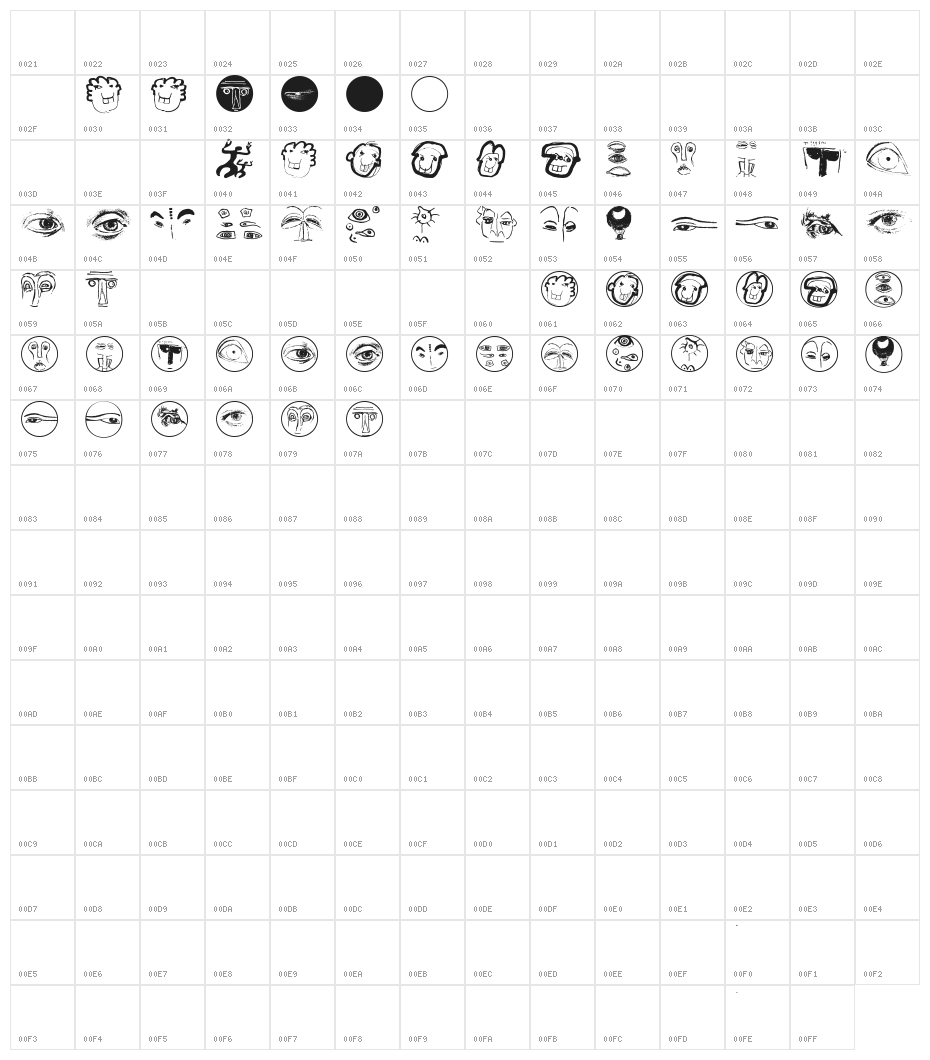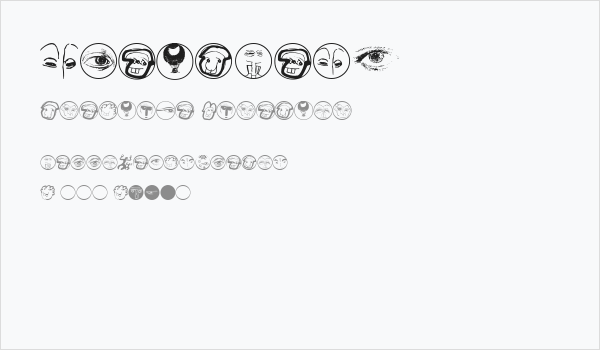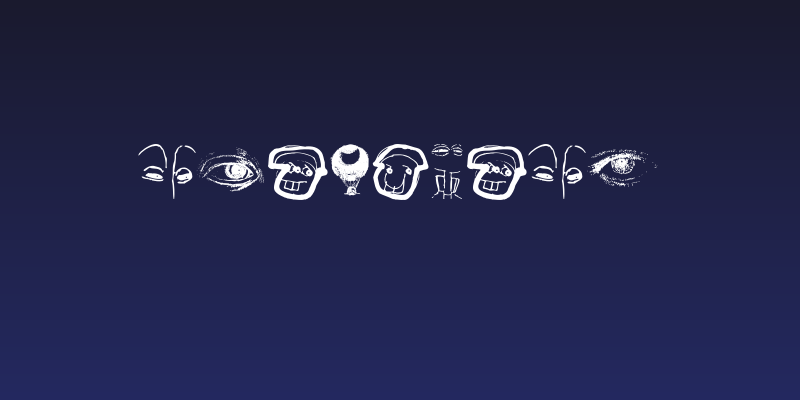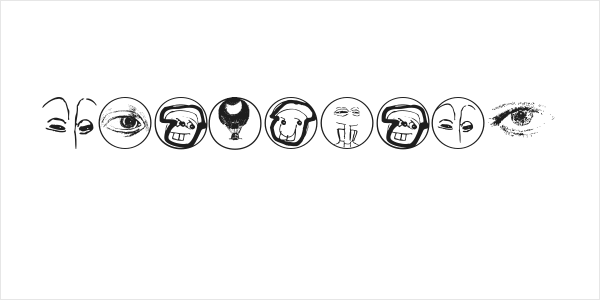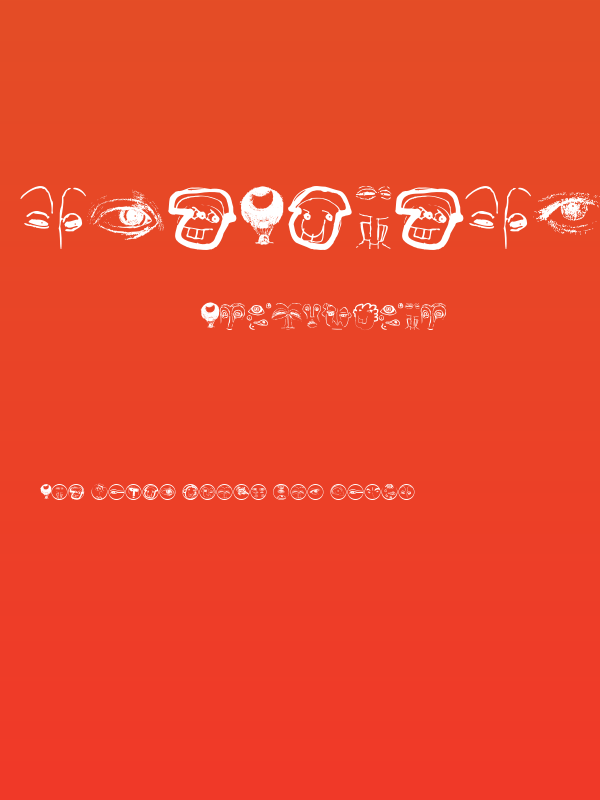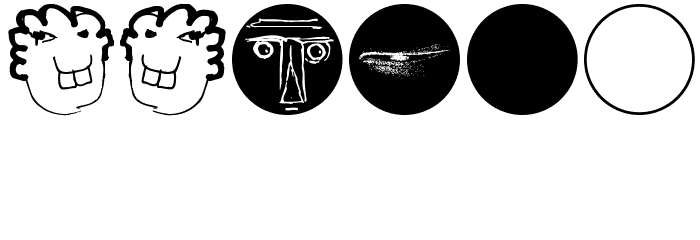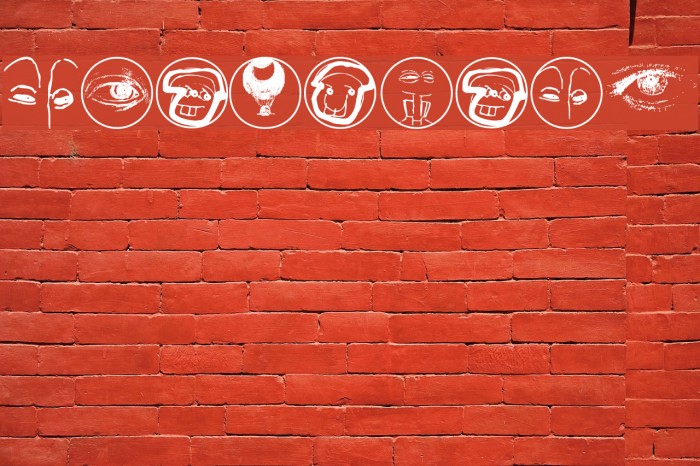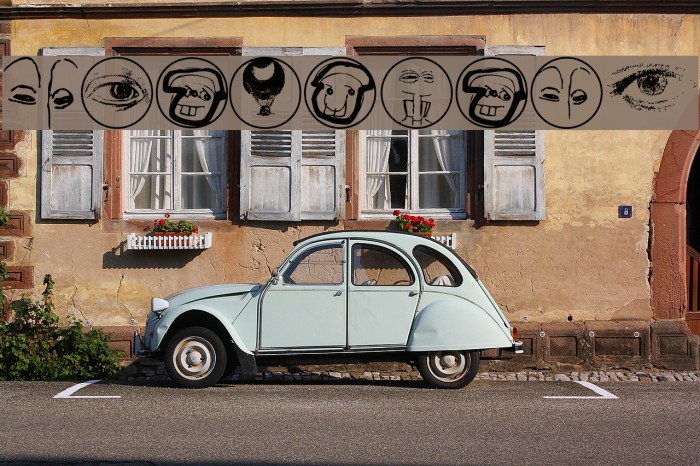
SketchesX Font
SketchesX Description
A highly decorative, hand-drawn font composed of expressive sketches of faces, eyes, and abstract shapes, each character rendered with unique artistic flair and varying line thicknesses. The glyphs are enclosed in circles or freeform, giving a playful and experimental appearance.
| Overall Style | Decorative, Artistic, Playful |
| Use Case | Logos, Posters, Headlines, Artistic projects |
| Proposed Projects | Children’s books, creative posters, album covers, art zines, experimental branding, editorial illustrations. |